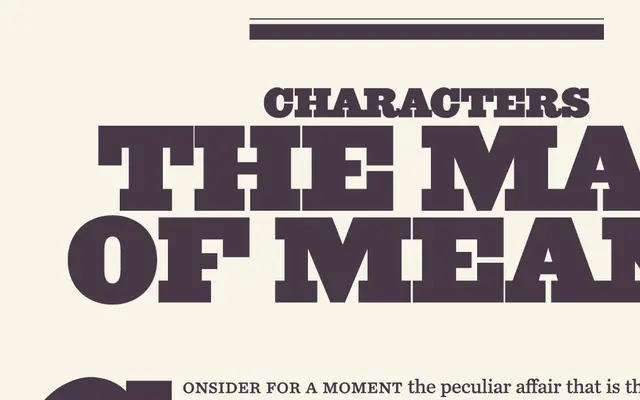
Ziggurat
Hoefler & Co · Jonathan Hoefler · 1991
A heavy Egyptian slab from Jonathan Hoefler, part of the Proteus Project and rooted in nineteenth-century broadside lettering.
An Egyptian slab serif by Jonathan Hoefler, drawn from the heavy slab traditions of nineteenth-century broadsides and wood type. Five weights from Light to Black, with the heaviest cuts doing most of the work. Released as part of The Proteus Project, sharing widths and weights with Acropolis, Saracen and Leviathan so the four families can be combined in the same setting. Built for posters, packaging and editorial mastheads.
H&Co classify Ziggurat as a heavy Egyptian slab in the nineteenth-century broadside tradition, part of The Proteus Project alongside Acropolis, Saracen and Leviathan, sharing their widths and weights.